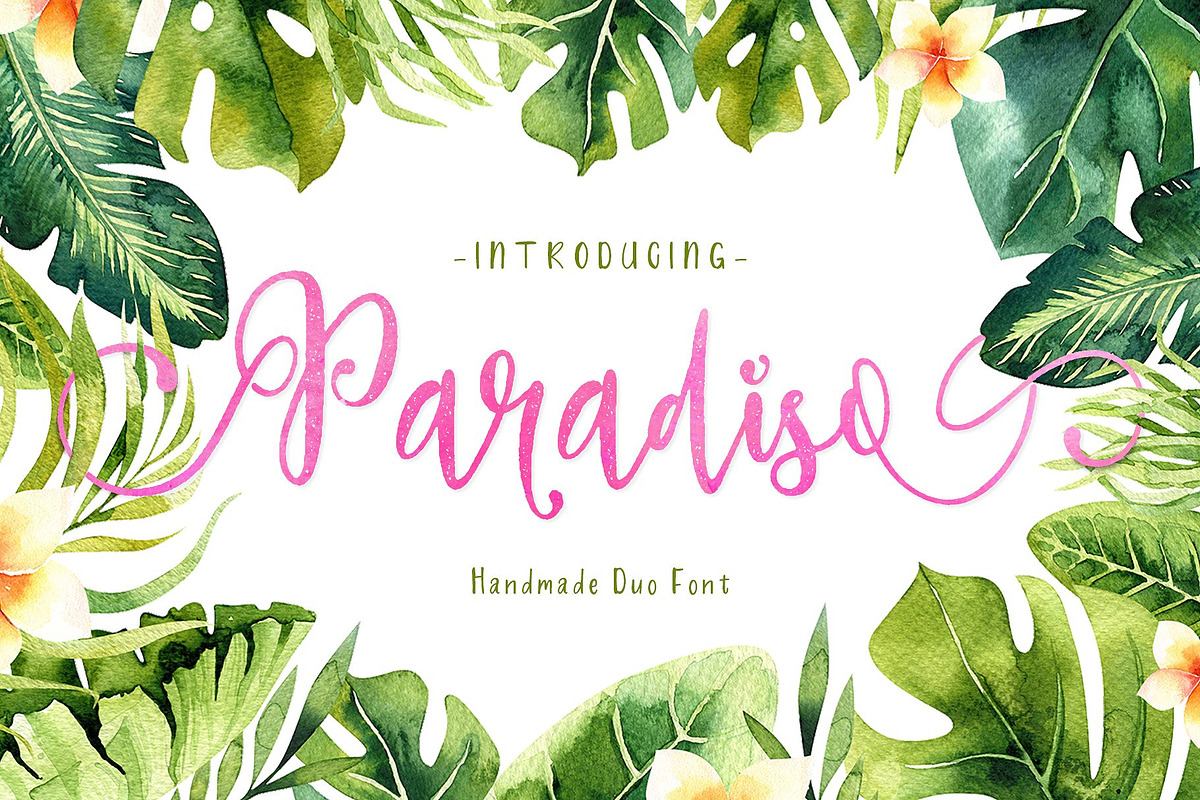
Paradiso - Fonts Duo Free Download
Paradiso – Fonts Duo Free Download is a stylish and well-balanced typeface pair that blends modern elegance with playful charm—perfect for adding depth and contrast to any design. Please note, you are required to purchase this font duo for commercial use. It is available for free download for testing and personal projects only.
Featuring a graceful script and a clean sans-serif, Paradiso is ideal for logos, wedding invitations, branding, social media posts, packaging, and editorial layouts. The duo works seamlessly together, allowing you to create sophisticated and dynamic typography combinations with ease.